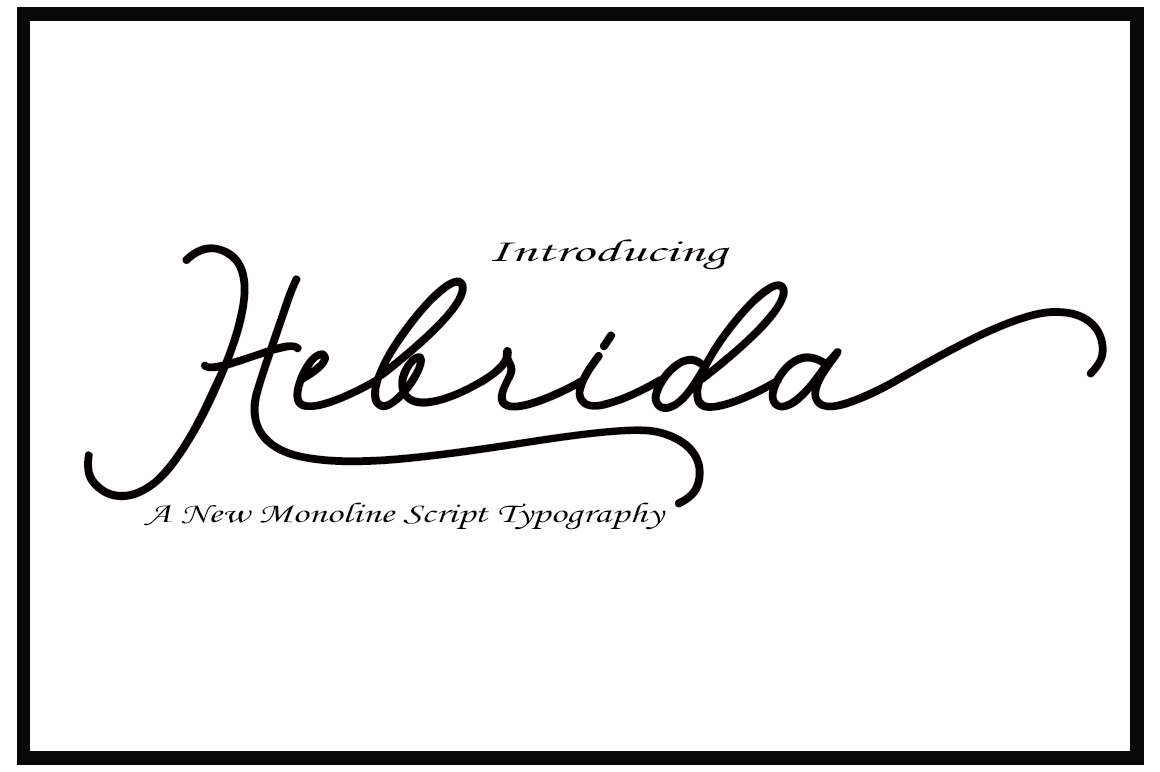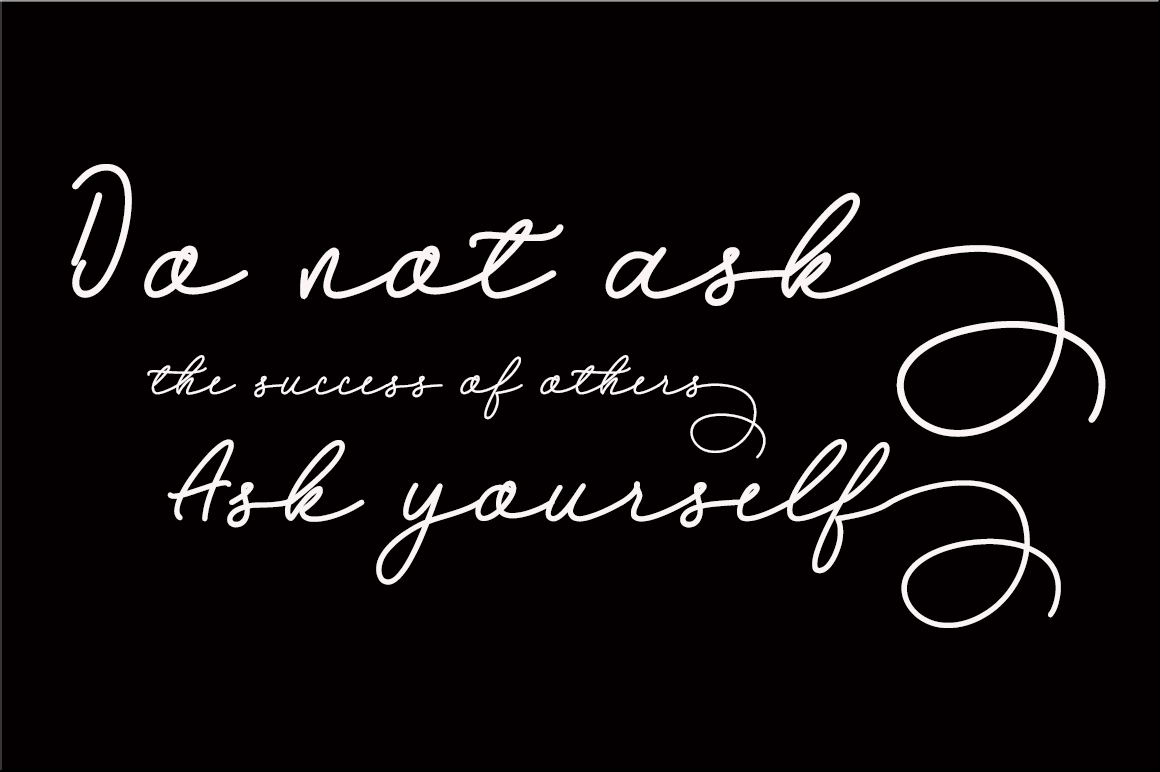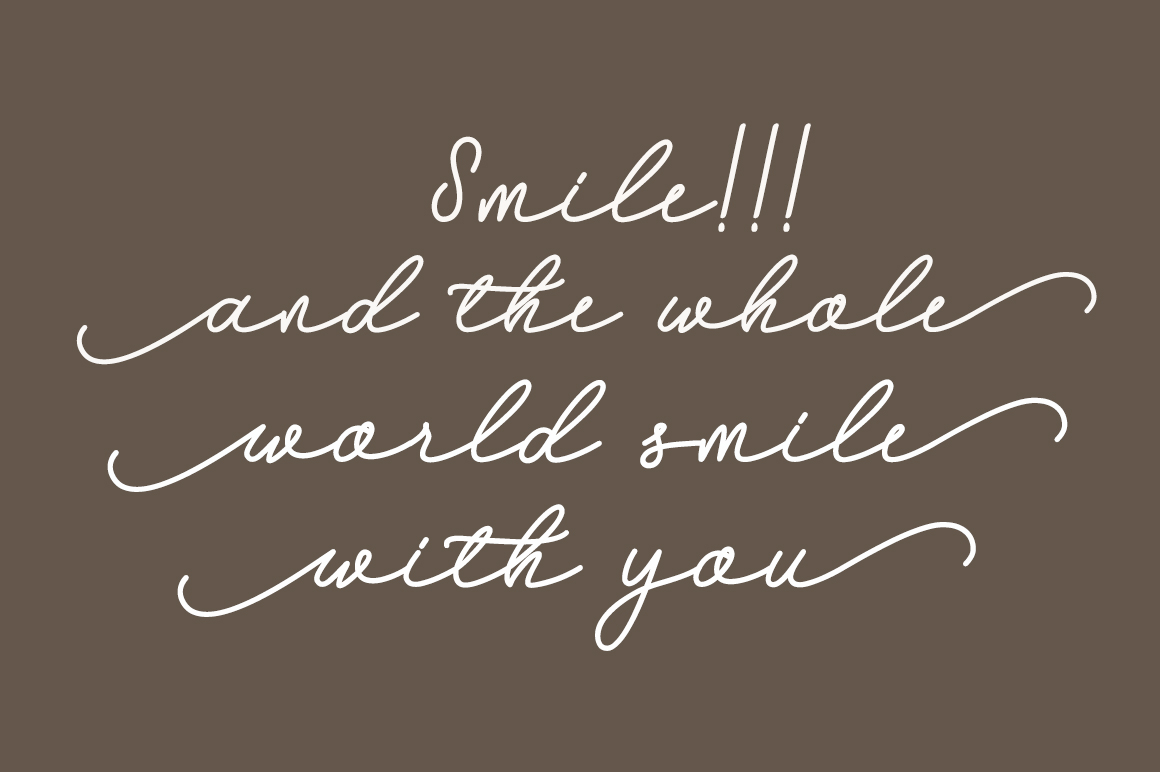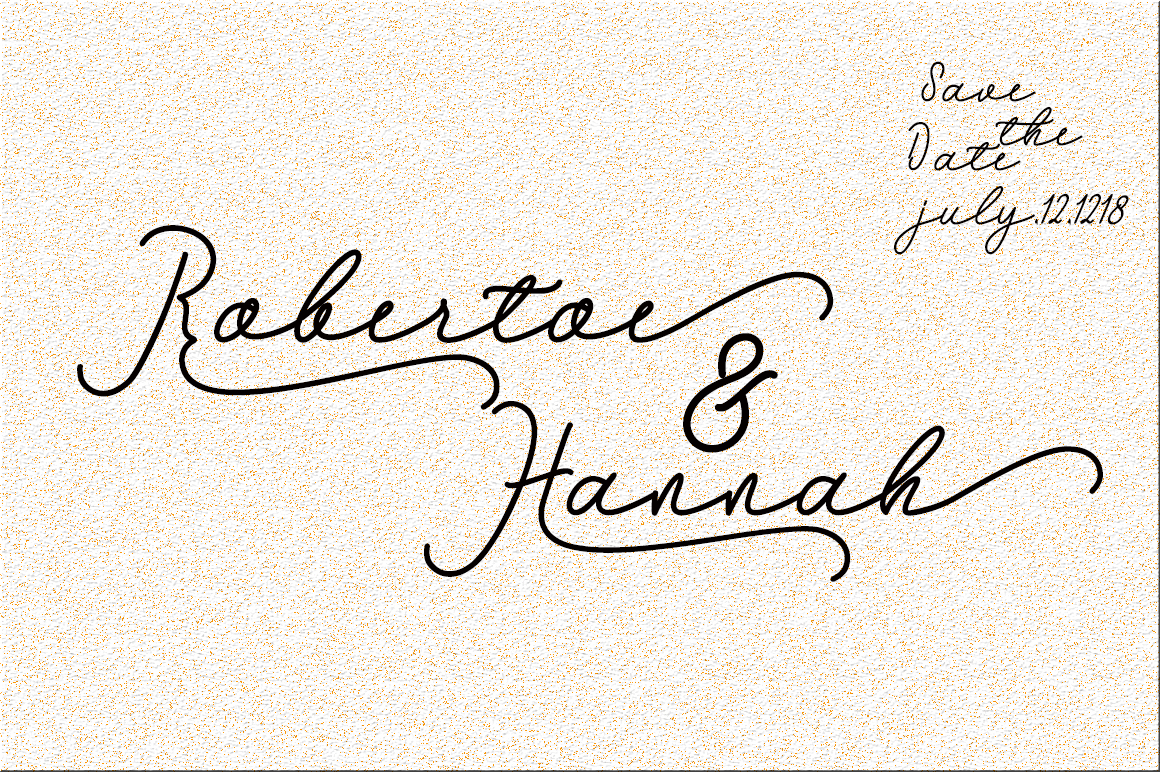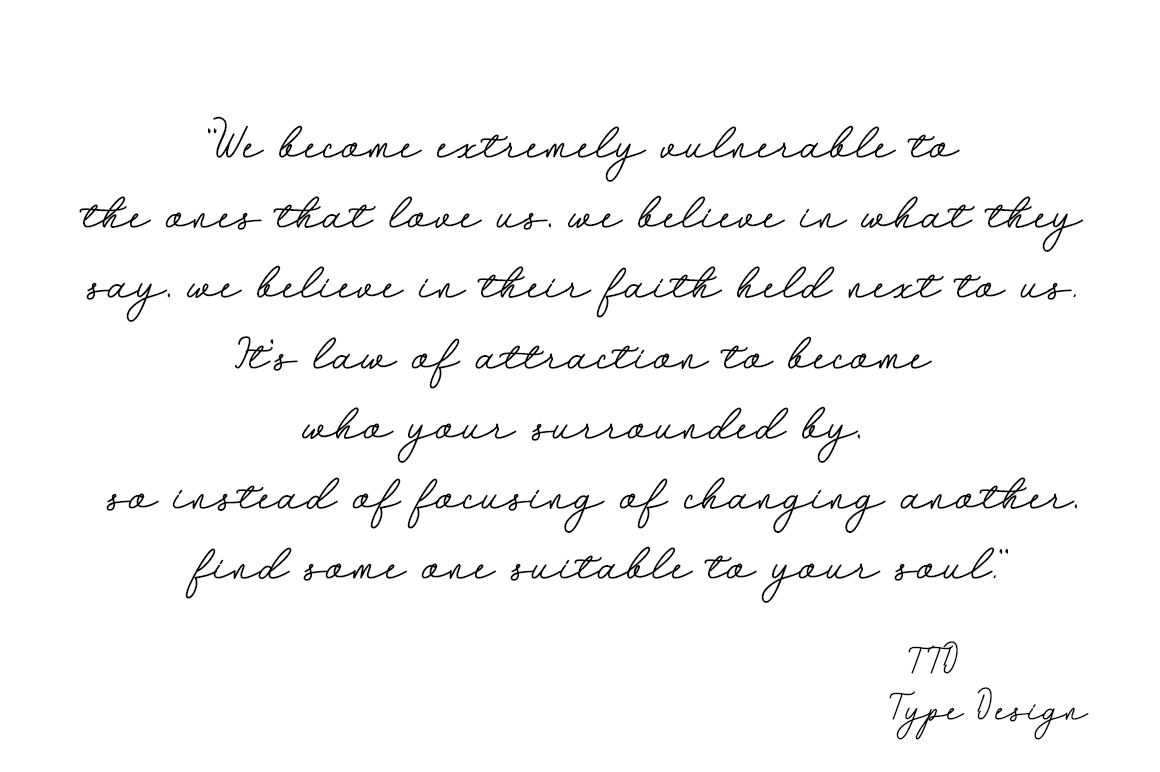
Hebrida Script Font
About Hebrida Script Font
Hebrida is a dancing, handmade font style with an incredible handwritten style. Monoline and clean, Hebrida is a great script to have in your design arsenal.